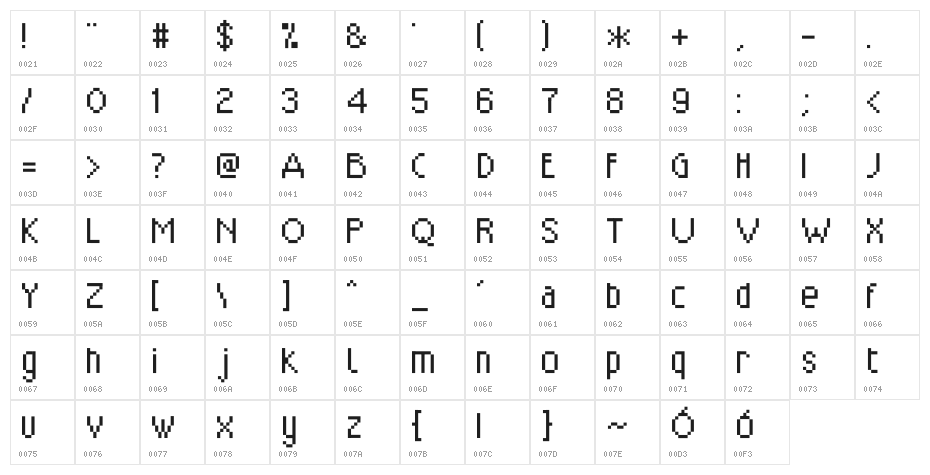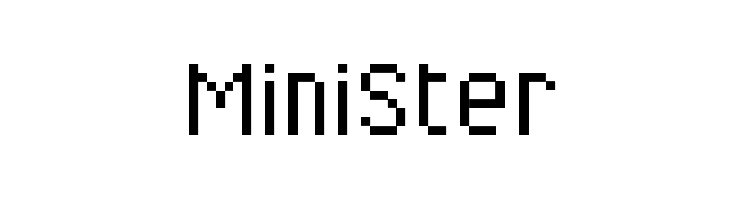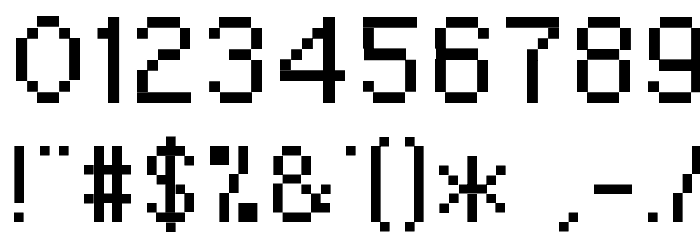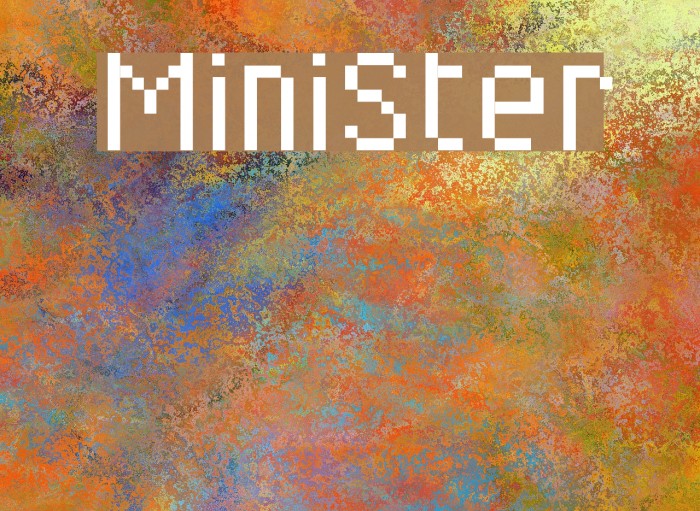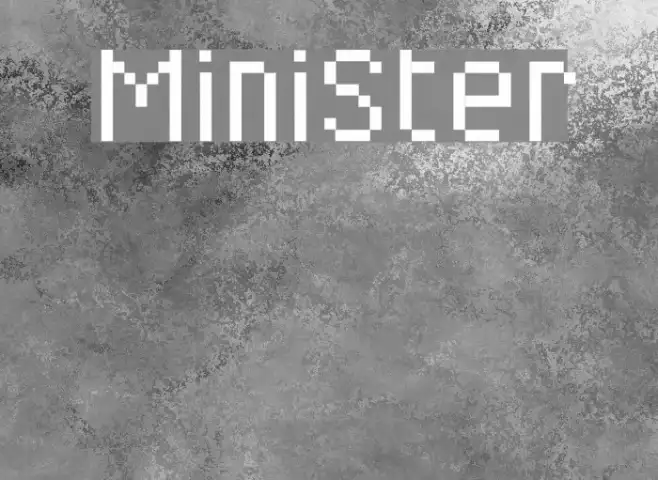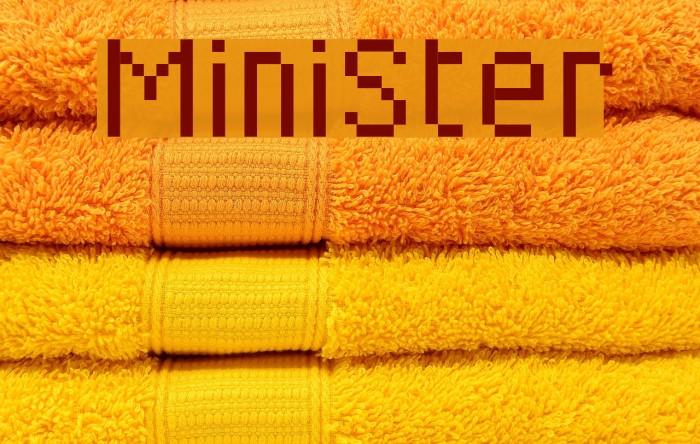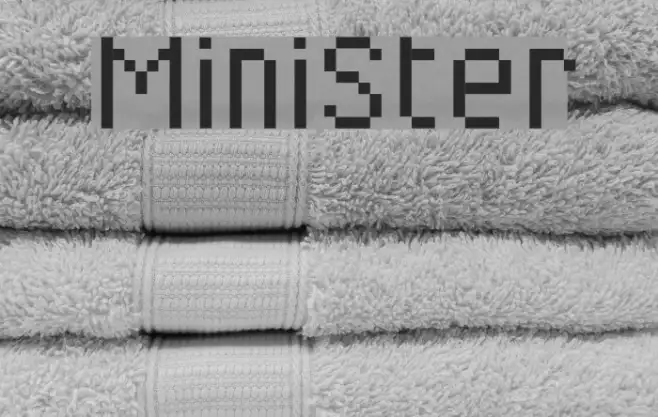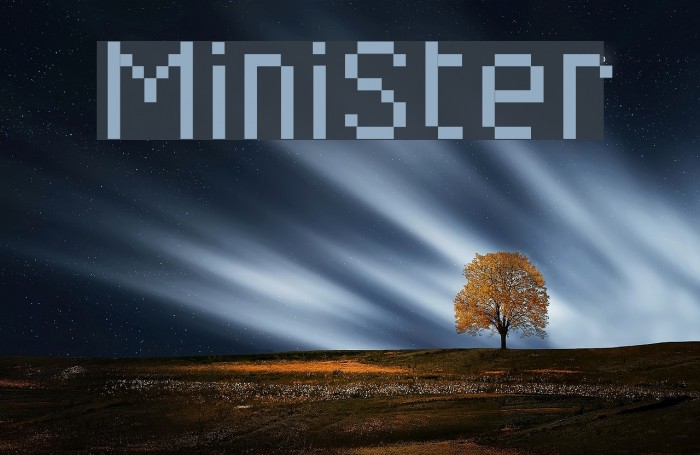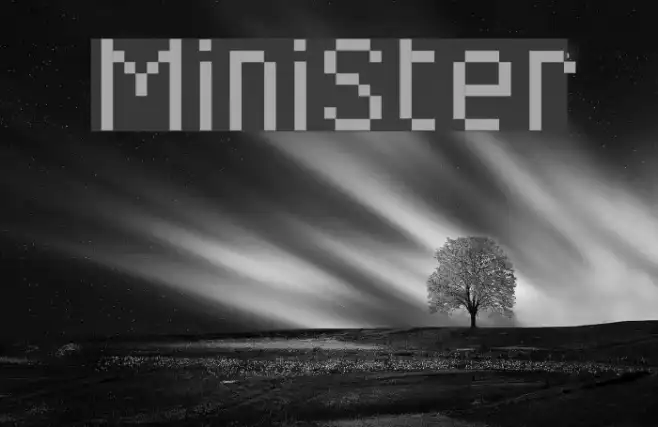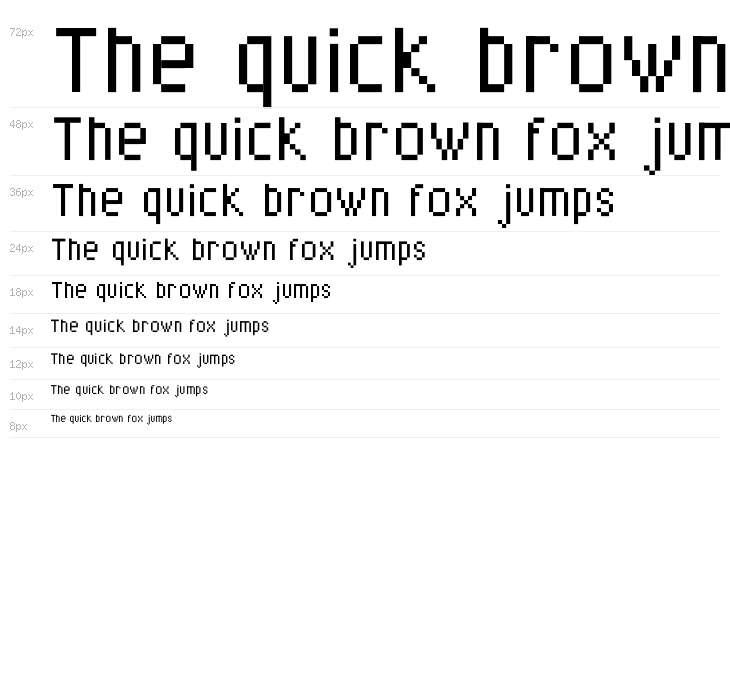
MiniSter Font
MiniSter Description
This font features a pixelated, blocky design reminiscent of early digital and video game typography. Each character is composed of a grid-like structure, giving it a distinctly retro and technological appearance. The uppercase and lowercase letters maintain a consistent height and width, contributing to a uniform and cohesive look. The numerals and special characters follow the same pixelated style, ensuring visual harmony across all text elements. This font's nostalgic aesthetic is ideal for projects that aim to evoke a sense of vintage computing or digital art.
| Proposed Projects | Ideal for video game design, digital art projects, retro-themed posters, and tech-related branding. |